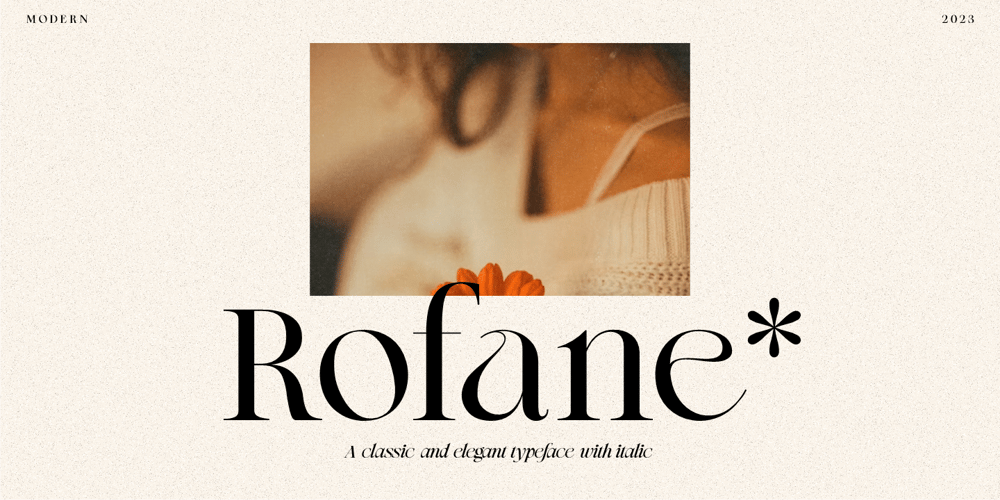
Rofane Font Family was designed by Risca Anitawati and published by Reyrey Blue Std. Rofane contains 2 styles and family package options. Introducing, Rofane Typeface. A classy and modern typeface that exudes timeless charm and elegance, designed with tight kerning and spacing to achieve a more aesthetic appearance. Available in 2 styles, regular and italic, it will add a luxury spark to any design project that you wish to create!